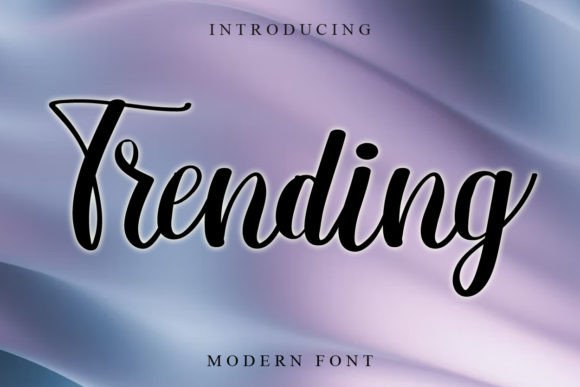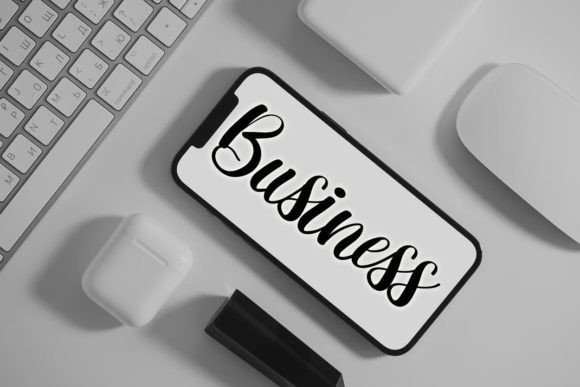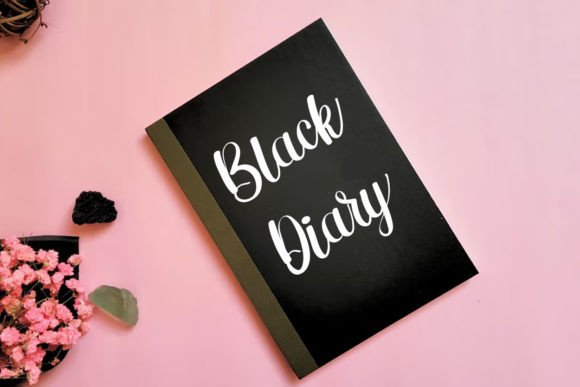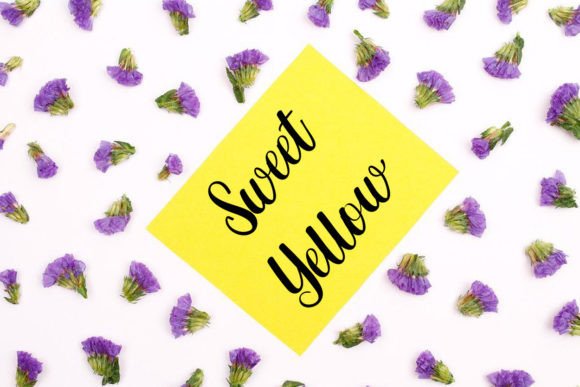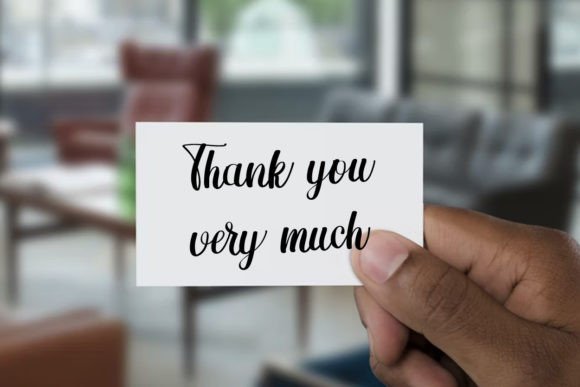
Trending Font
About Trending Font
**Trending Font: A Breath of Freshness for Your Designs**
Introducing “Trending,” a font that injects a breath of fresh air into your creative projects. Whether you’re designing YouTube banners, cover logo mockups, wedding invitations, ID cards, flyers, or engaging in craft projects, Trending is a versatile and captivating font that not only enhances the visual appeal but also propels your business towards progress and development.
**Versatile Design for All Occasions:**
Trending is crafted with versatility in mind, seamlessly integrating into a spectrum of design contexts. From the dynamic world of YouTube banners to the refined elegance of wedding invitations, and from professional ID cards to eye-catching flyers and crafts, Trending proves to be a font that adapts effortlessly to diverse creative scenarios.
**Progress and Development for Your Business:**
Embracing Trending is not just a design choice; it’s a strategic move for advancing and developing your business. The font brings a contemporary and unique flair that can set your brand or project apart, leaving a lasting impression on your audience and contributing to the overall growth of your endeavors.
**Simplicity Meets Uniqueness:**
Trending strikes a perfect balance between simplicity and uniqueness. Its straightforward design ensures easy readability while maintaining a distinctiveness that guarantees your designs stand out. In a world filled with visual stimuli, the simplicity of Trending becomes a strength, drawing attention without overwhelming the viewer.
As you incorporate Trending into your design arsenal, you’re not just adding a font; you’re integrating a catalyst for inspiration and progress. Witness your projects transform into visual masterpieces, with every curve and contour enhancing the overall aesthetic.
**Choose Trending for Beauty and Progress:**
Trending is more than a font; it’s a creative partner that adds a touch of freshness and elegance to your projects. Embrace its simplicity and uniqueness, allowing it to be the driving force behind your design endeavors. Choose Trending to infuse your creations with a sense of beauty and progress, and watch as it positively impacts your business and creative pursuits.